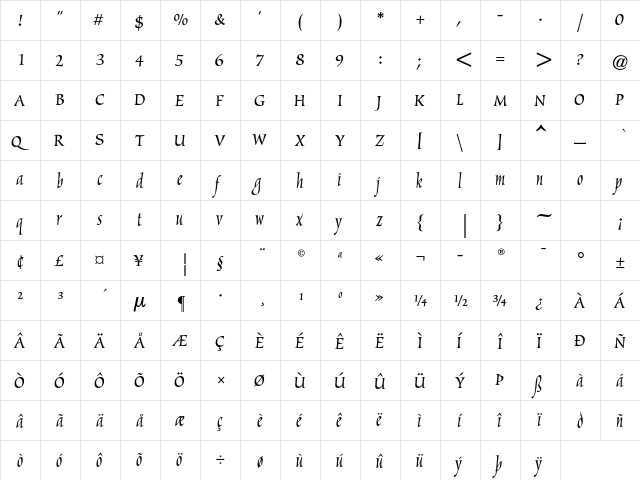
Marigold Std Regular
| Designer | Arthur Baker |
Design Context for Marigold Std Typeface
Marigold Std is a composed and adaptable typeface that performs quietly and consistently across a wide range of design contexts.